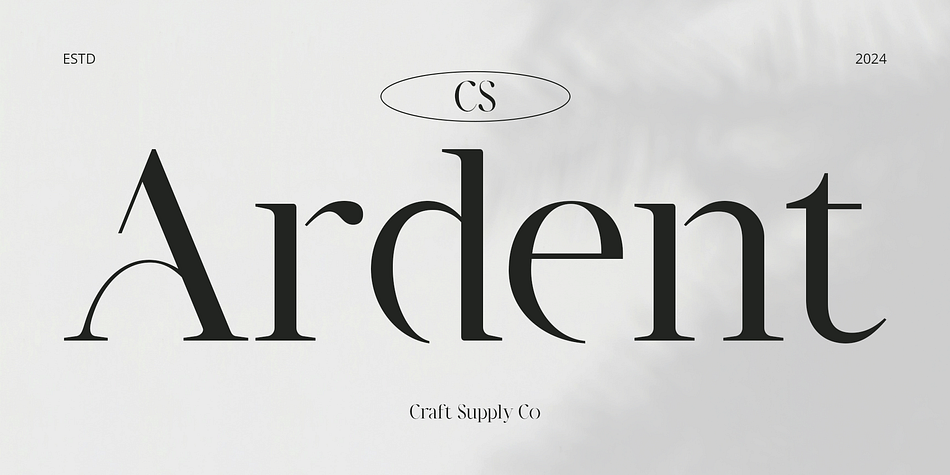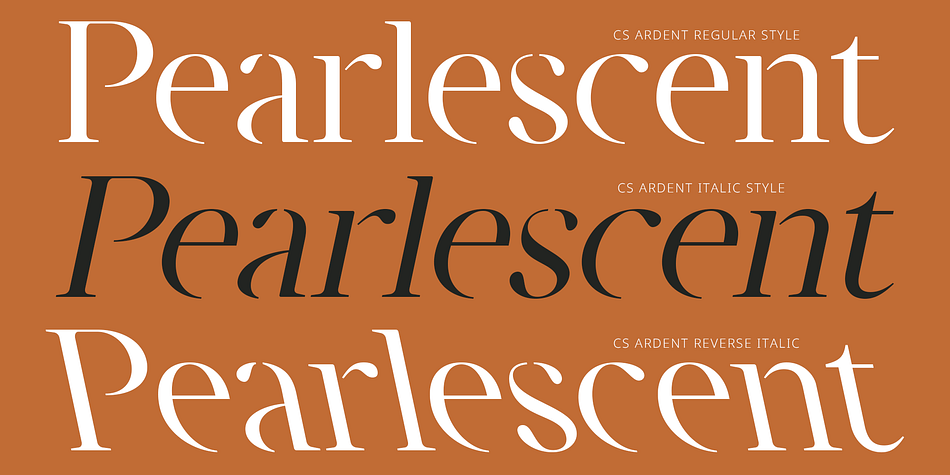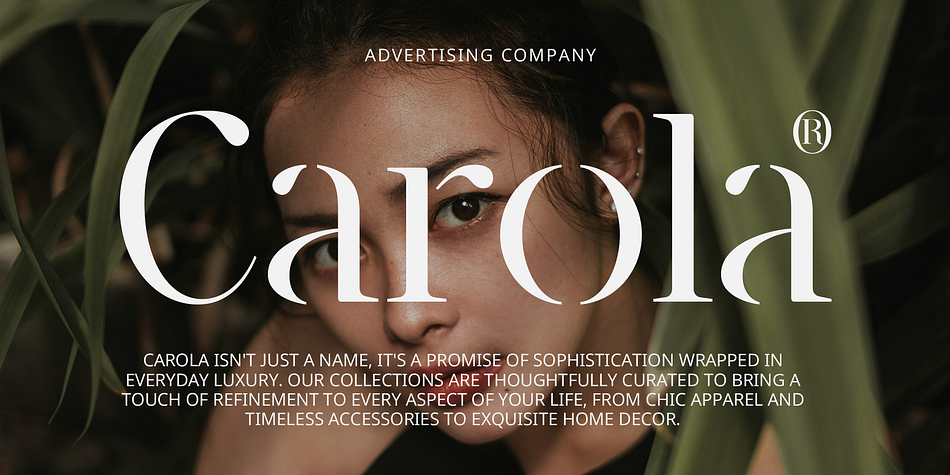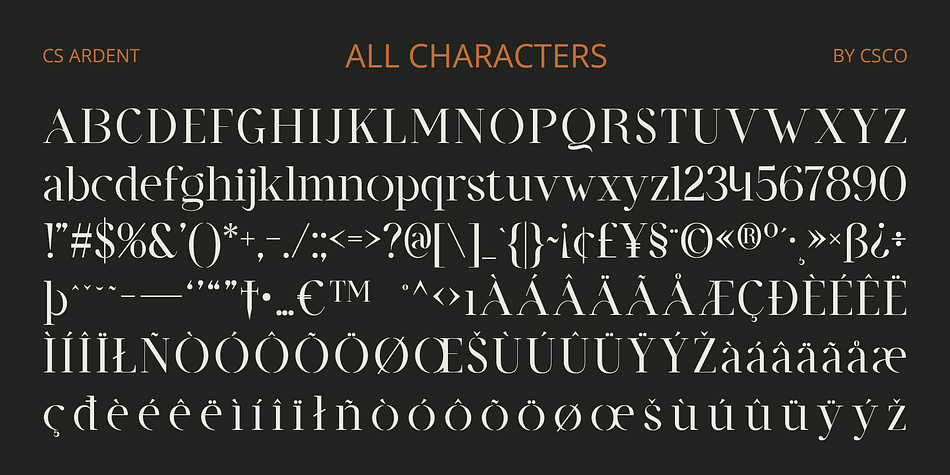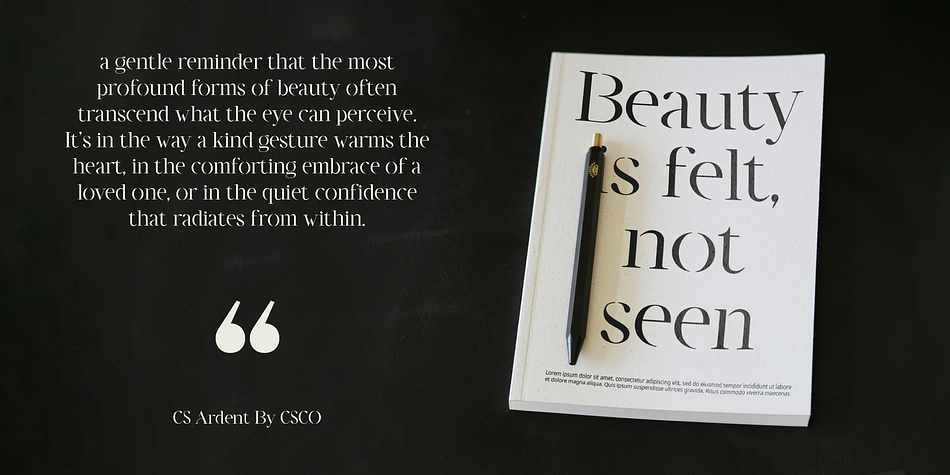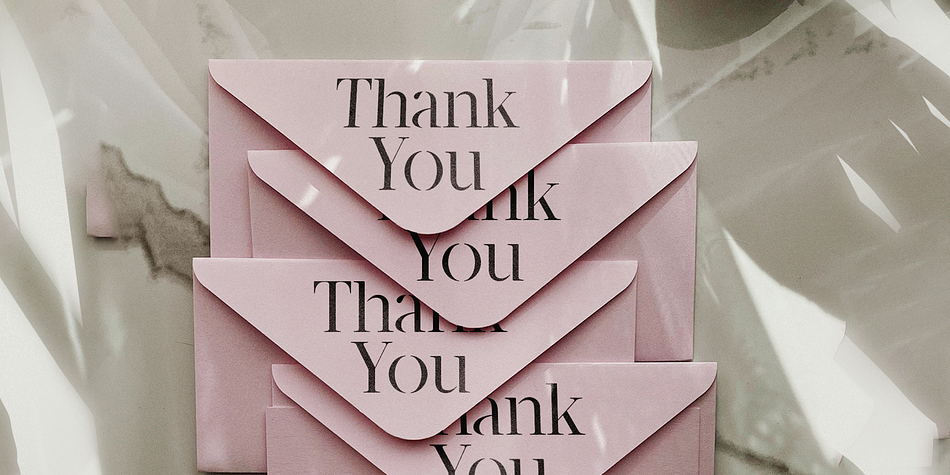
CS Ardent
CS Ardent is a serif font family. This typeface has three styles and was published by Craft Supply Co.
CS Ardent – Elegant Stencil Serif Font
Modern Serif with Elegant Stencil Design
CS Ardent is a contemporary serif font that merges classic elegance with a modern stencil design. Featuring bold, defined serifs alongside clean, structured cutouts, this font offers a sophisticated and professional appearance with a unique technical edge.
Bold and Defined Elegance
The combination of traditional serif elements with the precise, structured features of stencil design creates a font that stands out with bold visual character. The elegant serifs maintain a formal aesthetic, while the stencil details introduce a touch of modernity and technical precision.
Perfect for Branding and Promotional Materials
CS Ardent’s blend of sophistication and visual impact makes it an ideal choice for branding and promotional materials. Its elegant design ensures a professional look, while the stencil cutouts add a distinctive and memorable touch, striking a balance between refinement and boldness.